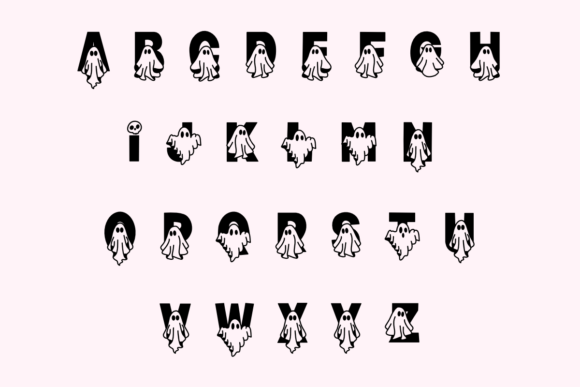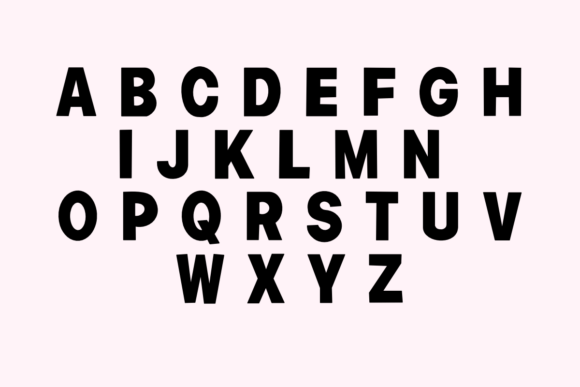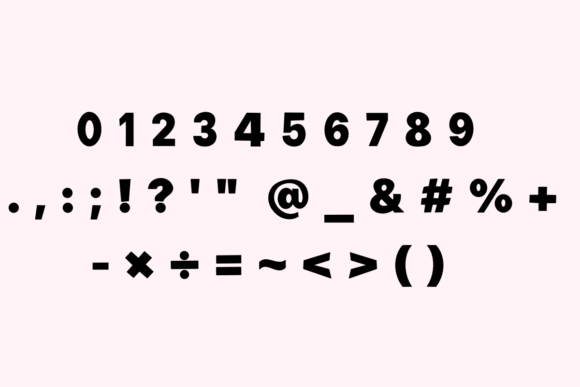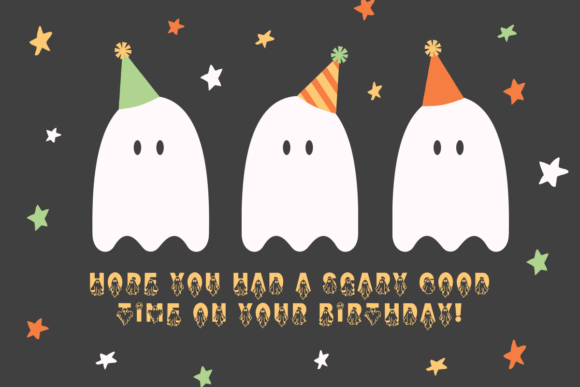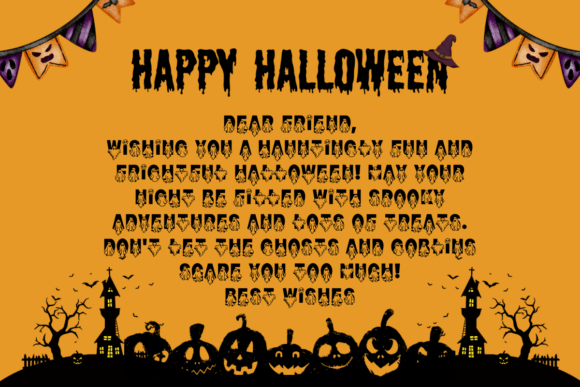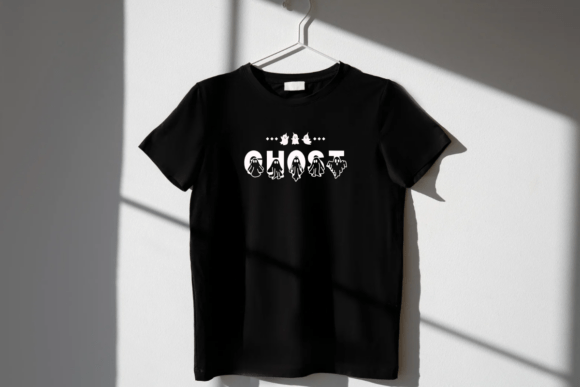
Cute Ghost Font: The Spookiest yet Sweetest Decorative Font for Your Designs
Are you a designer, crafter, or simply a DIY enthusiast looking for a unique and playful font to add a touch of whimsy to your projects? Look no further than the Cute Ghost Font! This adorable decorative font is perfect for a wide range of creative endeavors, from taking notes and writing diaries to crafting greeting cards, banners, and social media posts.
What is Cute Ghost Font?
Cute Ghost Font is a specially designed decorative font that features a playful and spooky-chic aesthetic. Its unique characters are reminiscent of friendly ghosts, making it an ideal choice for Halloween-themed designs, but its versatility also makes it suitable for various other projects throughout the year.
Uses of Cute Ghost Font
The Cute Ghost Font is incredibly versatile and can be used for a multitude of design projects, including:
- Note-taking and journaling: Add a touch of personality to your notes and diary entries with this fun and quirky font.
- Greeting cards: Create one-of-a-kind birthday, holiday, or get-well cards that are sure to delight the recipient.
- Banners and signs: Use Cute Ghost Font to create eye-catching banners and signs for parties, events, or promotions.
- Social media posts: Stand out on social media with custom graphics, quotes, and updates featuring this adorable font.
- Mugs, shirts, and stationery: Design unique and personalized items for yourself or as gifts.
Benefits of Using Cute Ghost Font
So, why choose Cute Ghost Font for your designs? Here are just a few benefits:
- Unique and eye-catching: This font is sure to grab attention and add a touch of personality to your designs.
- Versatile: Use it for a wide range of projects, from digital designs to print materials.
- Fun and playful: This font is perfect for designers and crafters who want to add a touch of whimsy to their work.
Tips for Using Cute Ghost Font
To get the most out of Cute Ghost Font, here are a few tips:
- Experiment with colors: Try pairing the font with different colors and textures to create unique and eye-catching designs.
- Mix and match: Combine Cute Ghost Font with other fonts and design elements to create visually interesting compositions.
- Keep it simple: Don’t be afraid to use the font on its own – sometimes, simplicity is the most effective way to make a design statement.
Cute Ghost Font is a delightful and versatile decorative font that’s perfect for designers, crafters, and DIY enthusiasts. With its playful and spooky-chic aesthetic, it’s sure to add a touch of personality to any design project. Whether you’re creating greeting cards, banners, social media posts, or simply taking notes, Cute Ghost Font is a great choice. So why not give it a try and see how you can use it to add some whimsy to your designs?